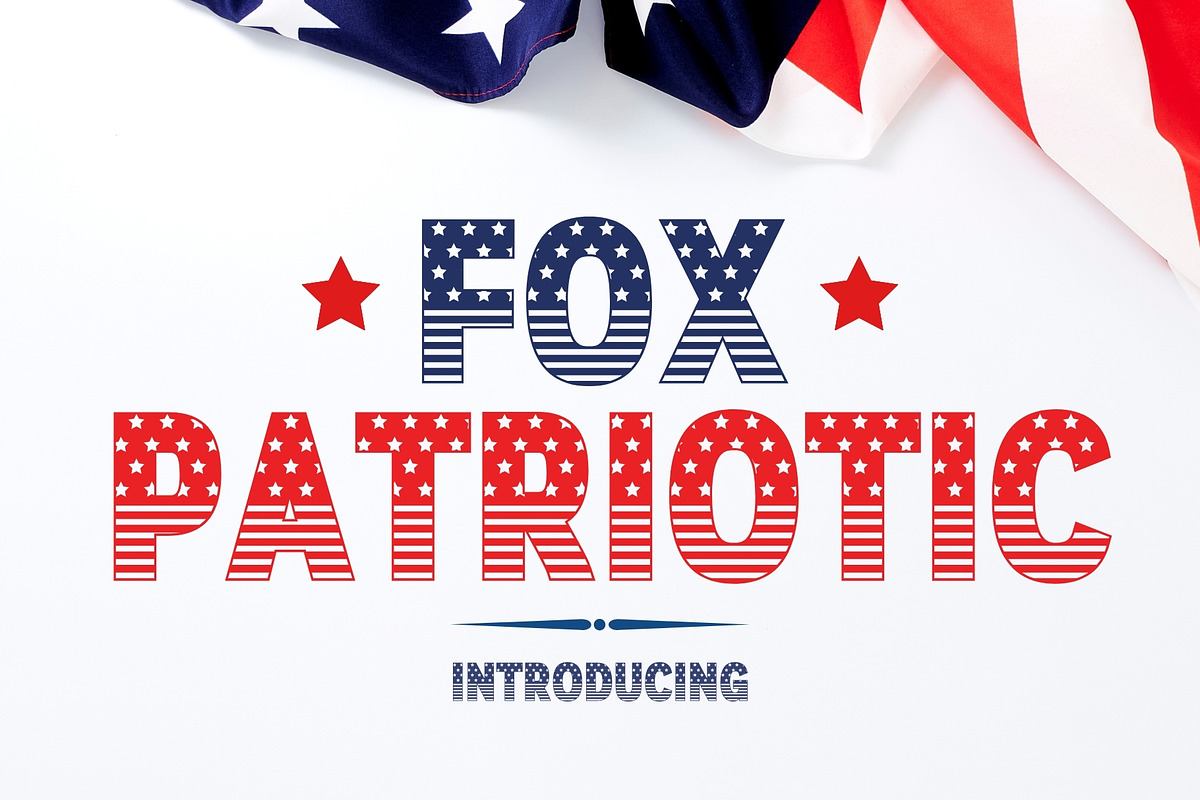
Fox Patriotic Font Free Download is a bold, all-American typeface that combines strong lines with classic charm—perfect for celebrating national pride. Whether you're designing for the 4th of July, military appreciation events, political campaigns, or patriotic merchandise, this font delivers a confident and spirited look that stands out loud and proud.
With its sturdy letterforms and subtle vintage flair, Fox Patriotic adds a timeless feel to posters, banners, apparel, and social media graphics. It’s available to test with a free download, allowing you to explore its vibe before using it commercially. For any business, branding, or resale purposes, a proper license is required.
Salute your creativity with Fox Patriotic Font Free Download and bring bold, red-white-and-blue energy to your next project. It’s the perfect font for making statements that matter—stylish, strong, and unmistakably American.